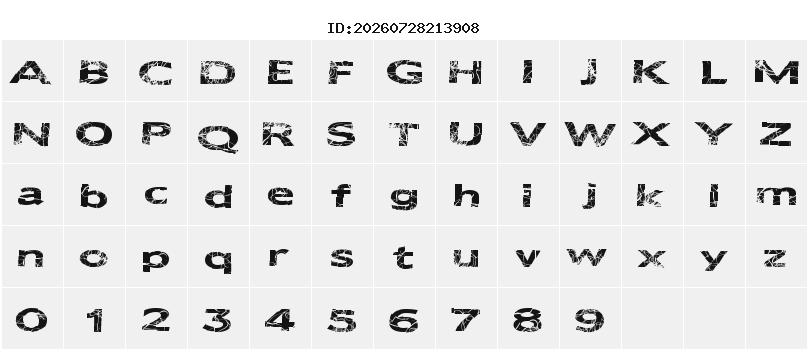
MetalCrime Preview
• Font Name: MetalCrime
• Full Font Name: MetalCrime
• Version: Version 1.00 May 30, 2012, initial release
• Designer: Max Infeld
• Manufacturer: Xerographer Fonts
• Description: This font was made in San Diego, CA
About MetalCrime.ttf
MetalCrime.ttf is a modern, elegant sans-serif font designed for ultimate readability and visual harmony. Perfect for branding, headlines, web design, and print materials.